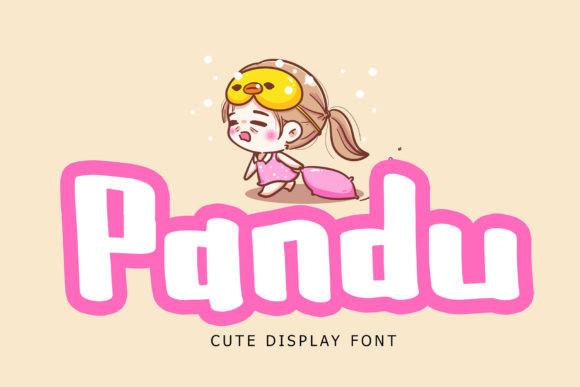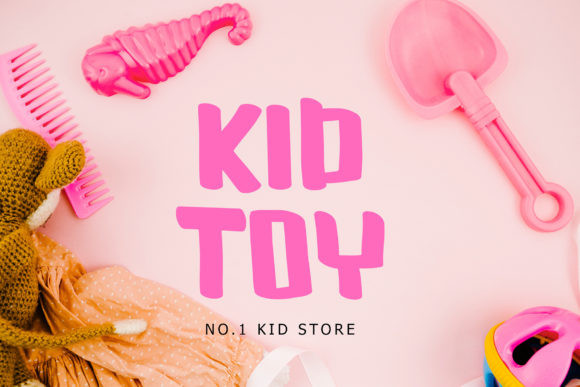
Pandu Font
Pandu is an exciting and extraordinary display font that will make any child-themed design stand out! This font is perfect for branding projects, logos, t-shirt designs, book cover designs, social media posts, and many more creative ideas.